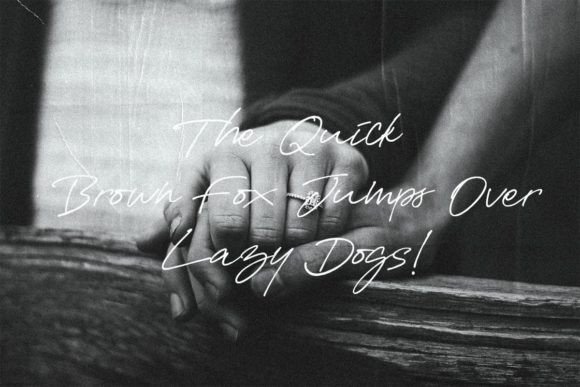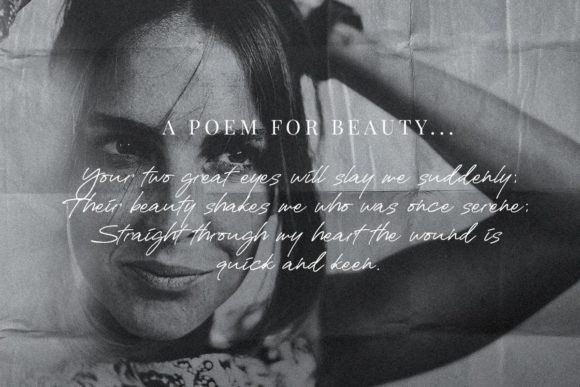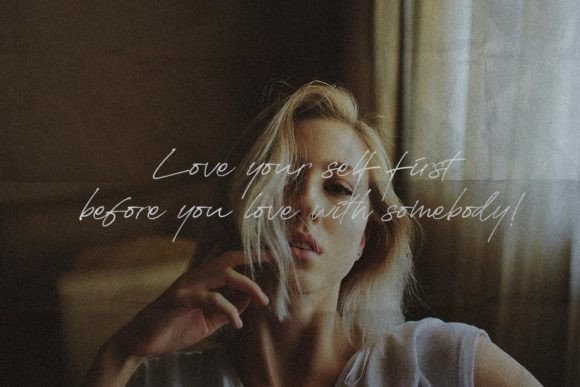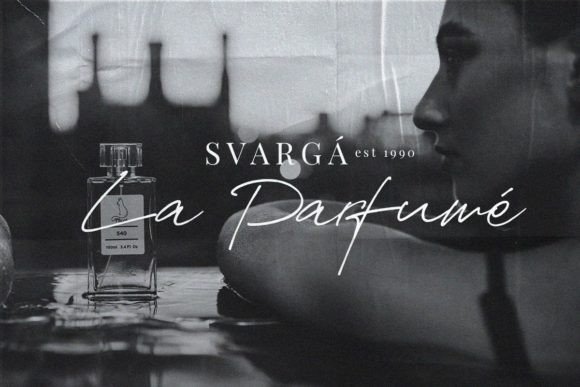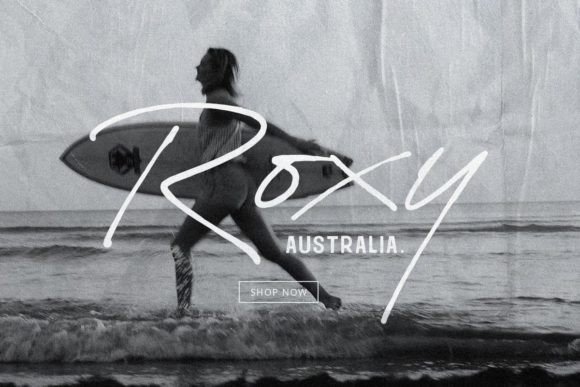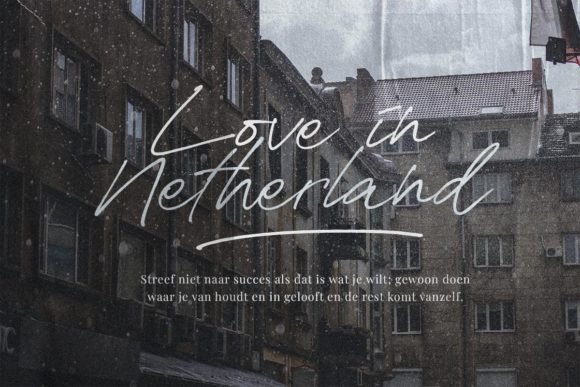
Betterman Font: Elevate Your Designs with a Realistic Signature Style
In the world of design, fonts play a crucial role in conveying the tone and personality of a project. Whether you’re a professional designer or a crafty DIY enthusiast, finding the right font can make all the difference. If you’re looking for a font that exudes elegance, sophistication, and a touch of realism, look no further than Betterman Font. In this article, we’ll dive into the world of Betterman Font, exploring its features, uses, and benefits for designers and crafters alike.
What is Betterman Font?
Betterman Font is a realistic signature font designed to add a personal touch to your projects. Its unique, hand-crafted style gives it a human feel, making it perfect for a wide range of applications. From formal invitations to social media posts, Betterman Font is versatile and adaptable, ensuring that your designs stand out from the crowd.
Key Features of Betterman Font
- Realistic Signature Style: Betterman Font boasts a genuine, hand-written look that’s sure to impress.
- Elegant and Sophisticated: The font’s refined design makes it ideal for high-end projects and special events.
- Highly Versatile: Use Betterman Font for everything from invitations and stationery to website designs and product packaging.
- Easy to Read: The font’s clear, legible design ensures that your message is conveyed with ease.
Uses for Betterman Font
Betterman Font is perfect for a wide range of projects, including:
- Invitations: Create stunning wedding invitations, birthday invitations, and more with Betterman Font.
- Quote Text: Add a touch of elegance to your quote designs with this beautiful font.
- Stationery: Elevate your stationery designs with Betterman Font’s sophisticated style.
- Wedding Invitation Designs: Make your wedding invitations truly special with this gorgeous font.
- Social Media Posts: Stand out on social media with Betterman Font’s unique, eye-catching design.
- Advertisements: Use Betterman Font to create captivating ads that grab attention.
- Website & Landing Pages: Enhance your website designs with Betterman Font’s elegant style.
- Product Packaging: Add a touch of sophistication to your product packaging with this versatile font.
- Product Designs: Use Betterman Font to create stunning product designs that showcase your brand’s personality.
- Labels: Create beautiful labels with Betterman Font’s clear, legible design.
- Photography: Add a watermark or text overlay to your photos with Betterman Font.
Betterman Font offers numerous benefits for designers and crafters, including:
- Time-Saving: With Betterman Font, you can create stunning designs in no time.
- Customization: Betterman Font is highly customizable, allowing you to tailor it to your project’s specific needs.
- Unique Style: Stand out from the crowd with Betterman Font’s distinctive, realistic signature style.